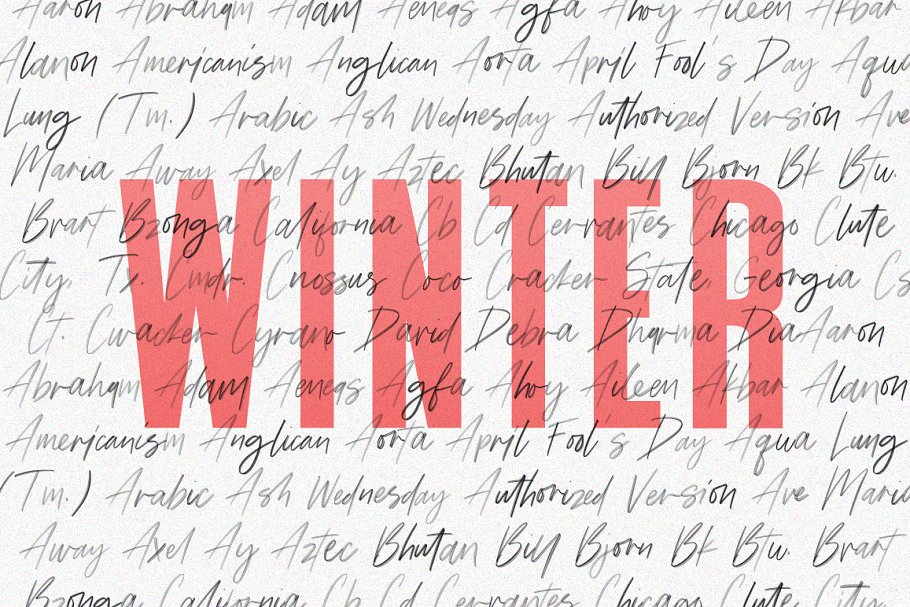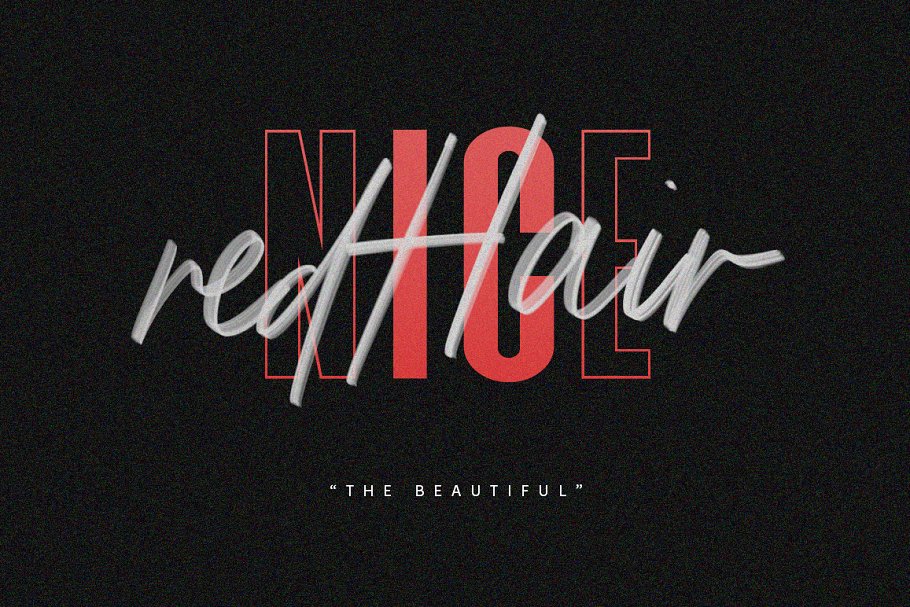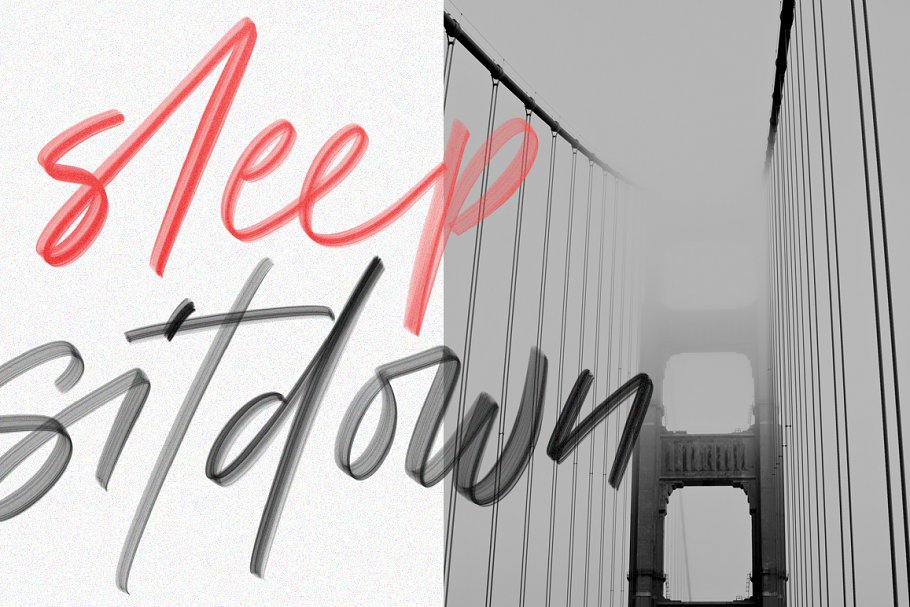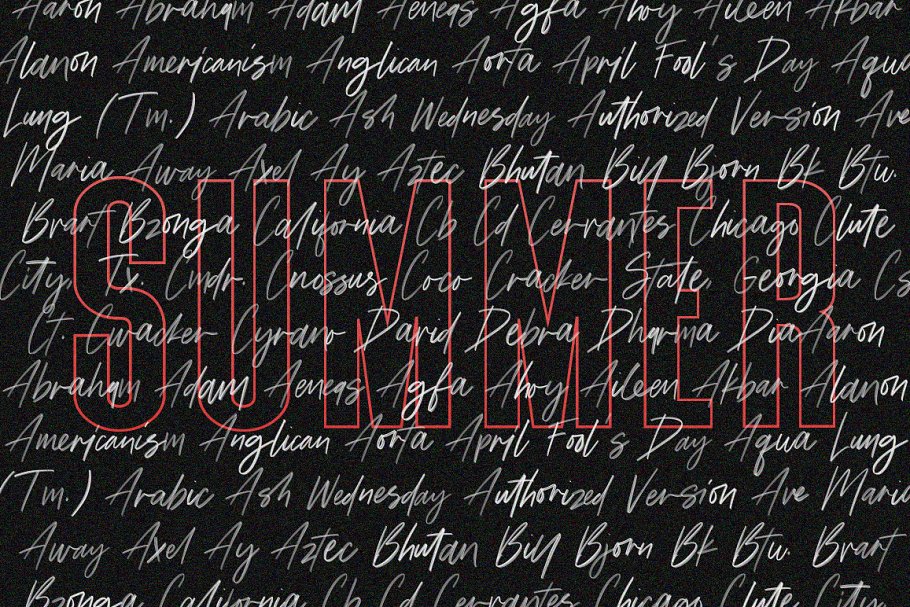
Triester SVG Brush Free Sans Font Family Free Download
About the Triester SVG Brush Free Sans Font
Give your designs an authentic brush handcrafted feel, Triester is perfectly suited to signature, stationery, logo, typography quotes, magazine or book cover, website header, flyer, clothing, branding, packaging design and more, This font available:Triester-SVG (OTF)Triester-Vector (TTF)Triester Sans (OTF)Triester Sans Outline (TTF)Triester Sans Outline (OTF)SVG can only use in Photoshop CC 2017 or CC 2018 (or newer)
Triester SVG Brush Free Sans Font